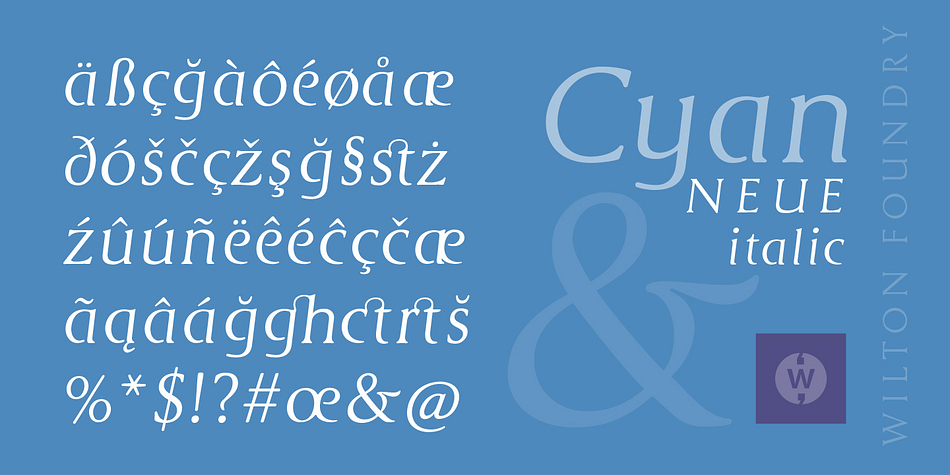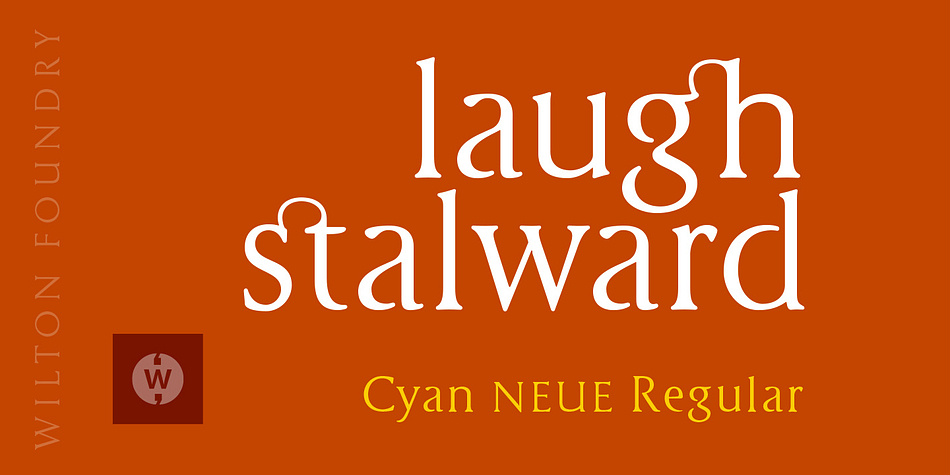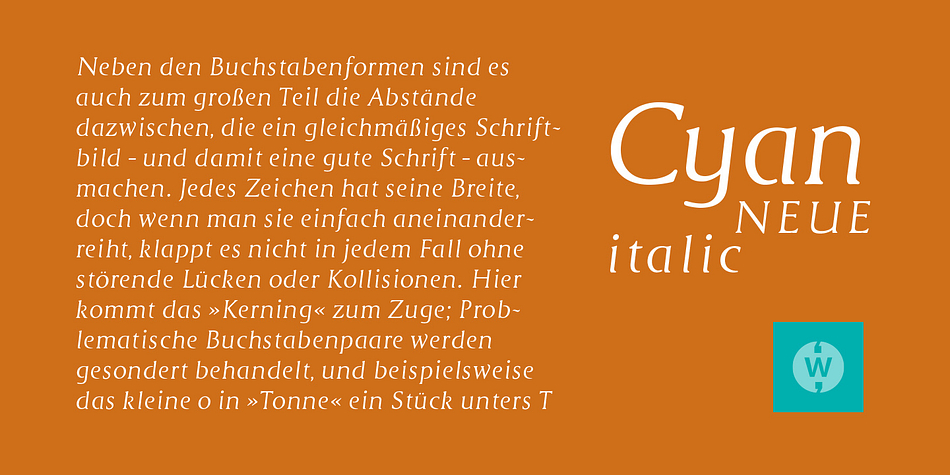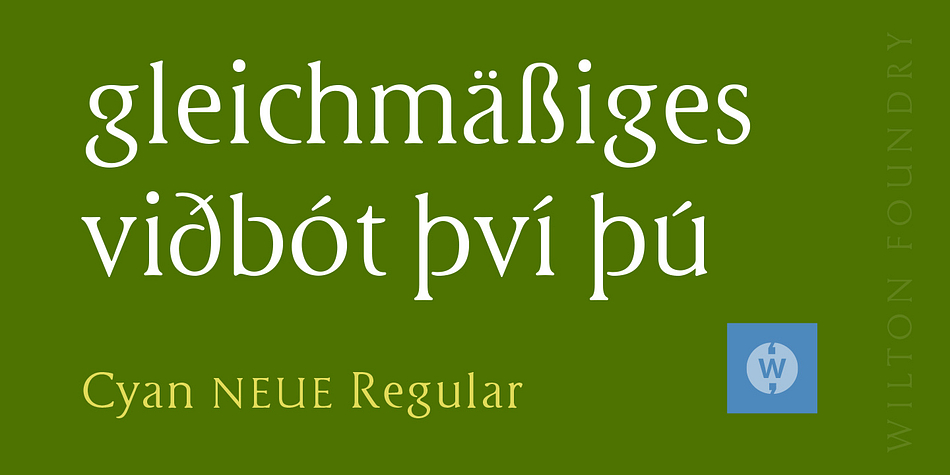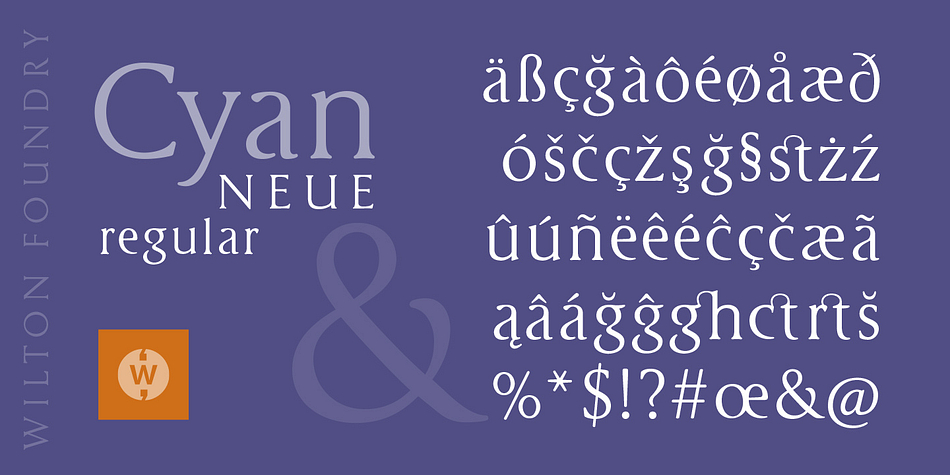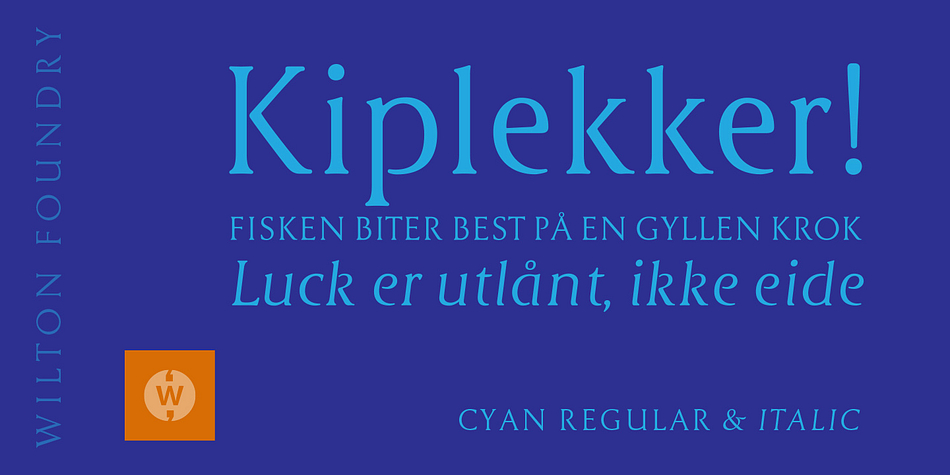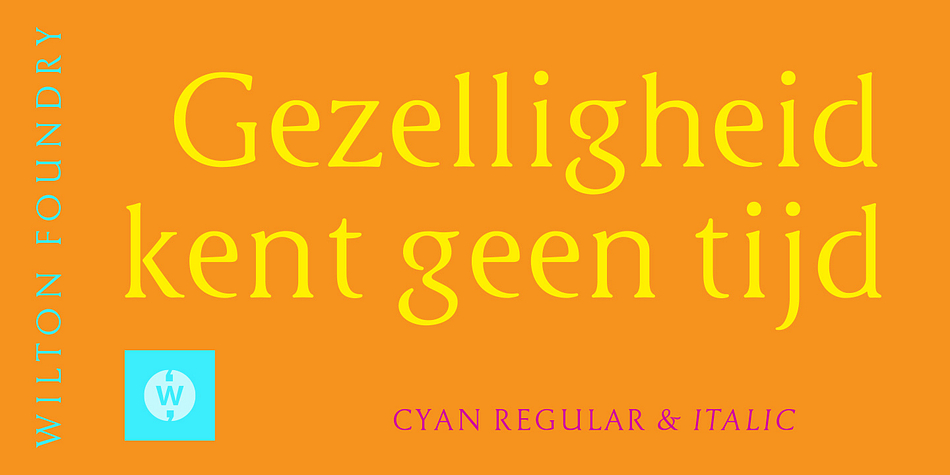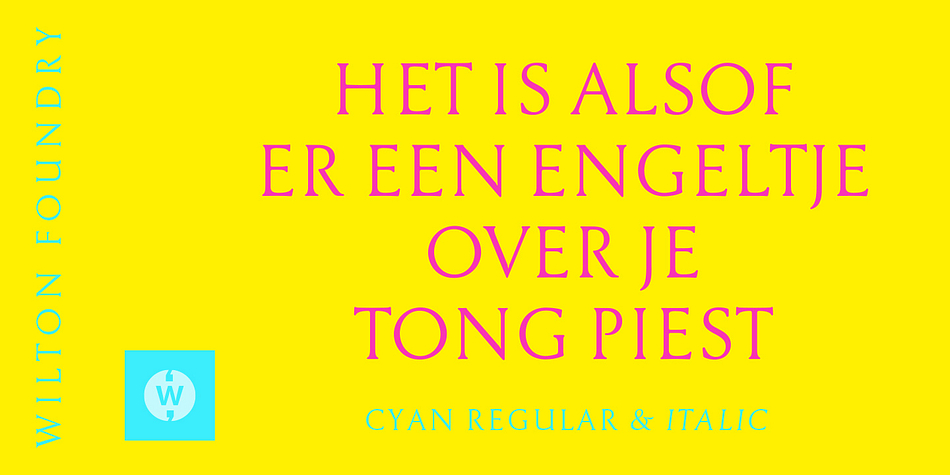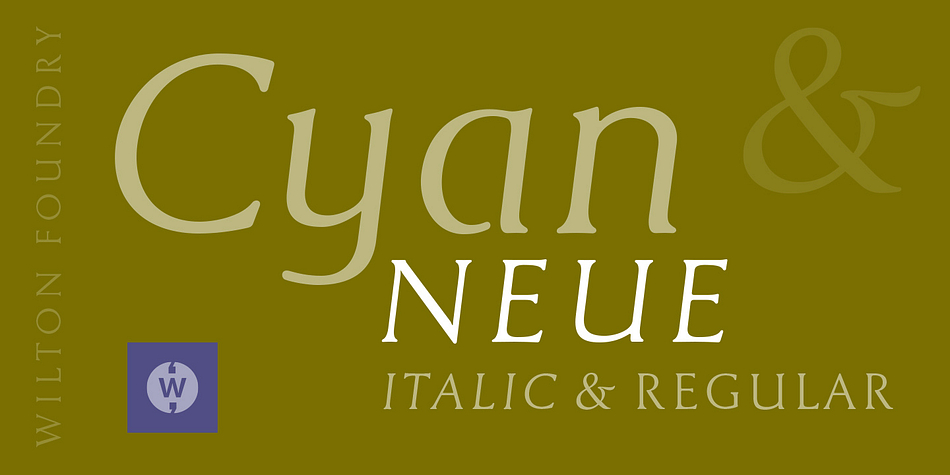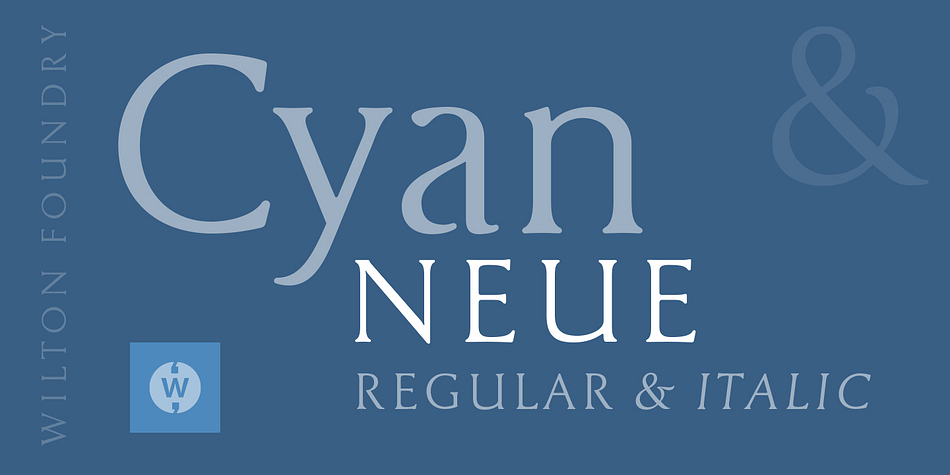
Cyan Neue is a serif font family. This typeface has two styles and was published by Wilton Foundry.
Cyan Neue is a substantial update variation to the original Cyan we launched in 2006. Most notably the contrast has decreased making it more contemporary. Many glyphs have been improved especially in the italics.
The design of Cyan Neue was inspired by features found in classic Roman. It shows a preference for geometric Roman proportions while incorporating open centers (B,P,R) and compact serifs. The characters stay true to the same features as the capitals, resulting in an unusually distinctive style. There are many subtle details in Cyan Neue that become more interesting in display sizes, for instance the subtle curves in the serifs and the overall smoothness. Cyan Neue is a robust font that will exceed your expectations.
Cyan Neue is clearly ideal for headlines, inscriptions, publications, annual reports, corporate identities, packaging.